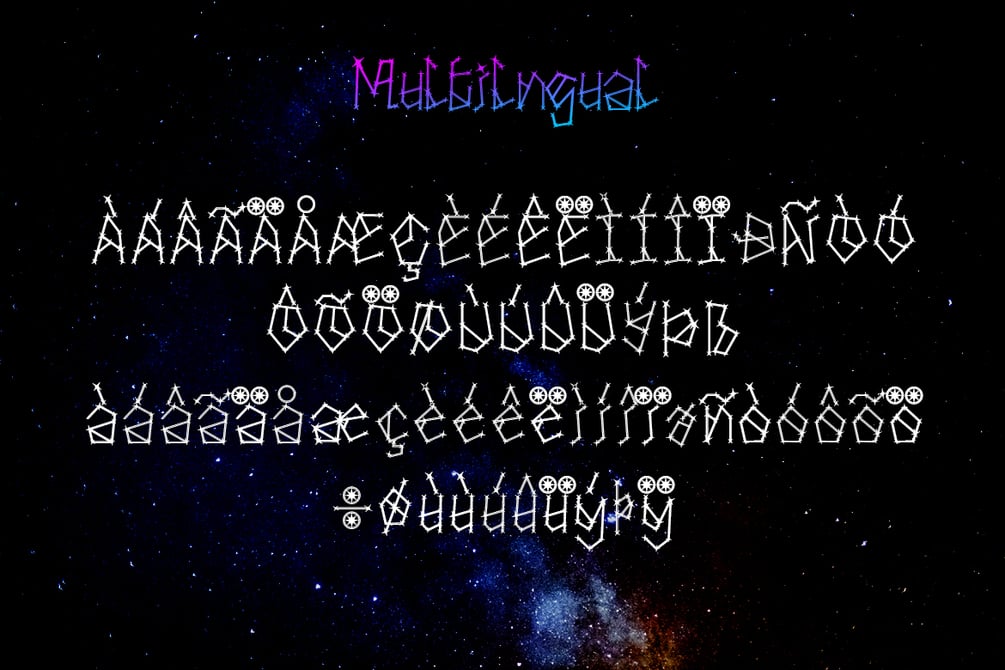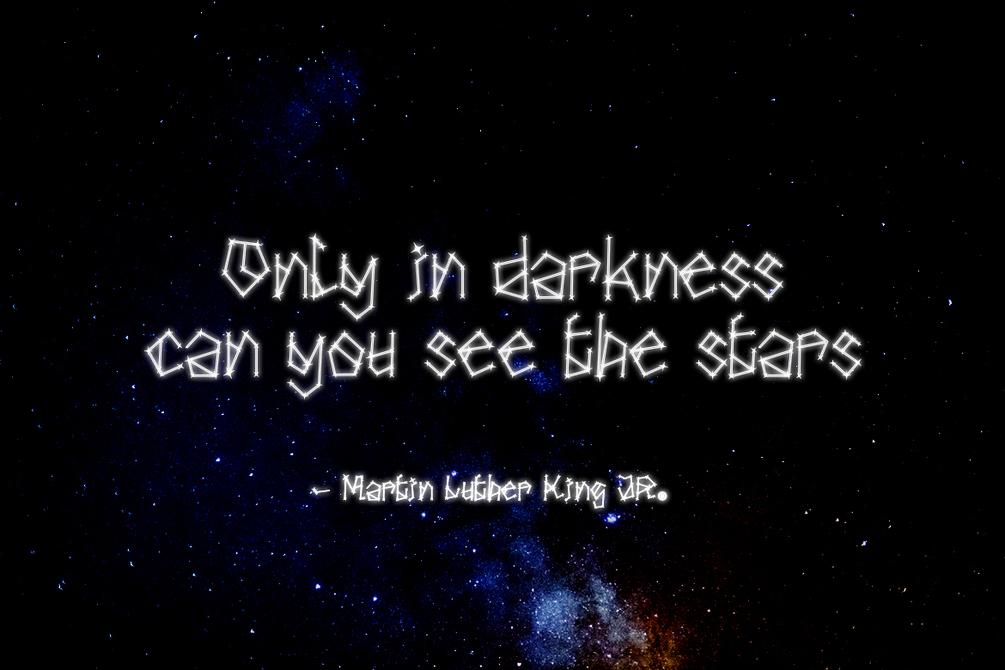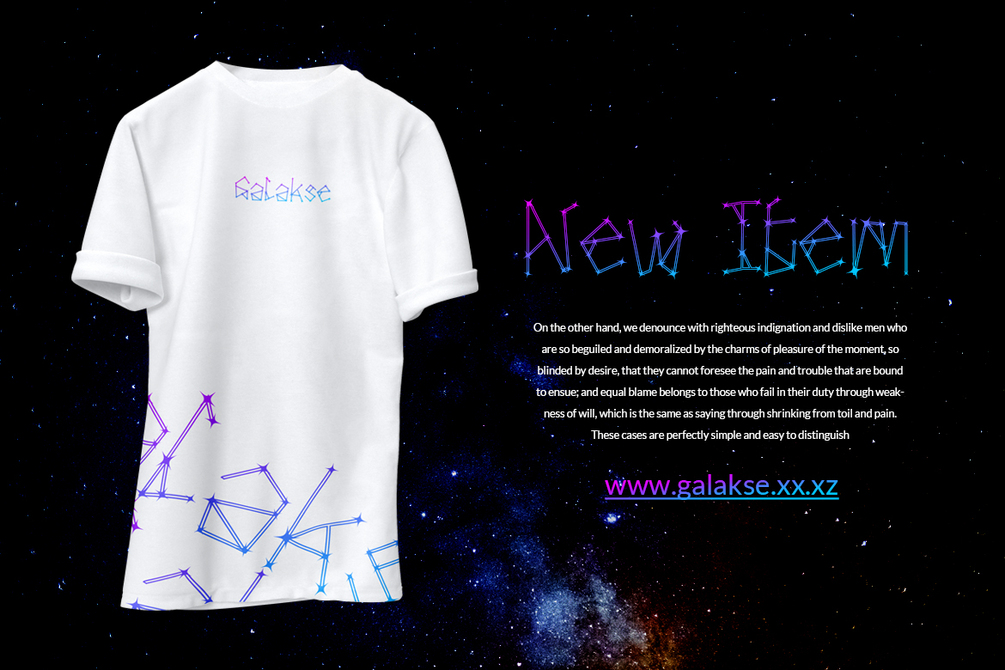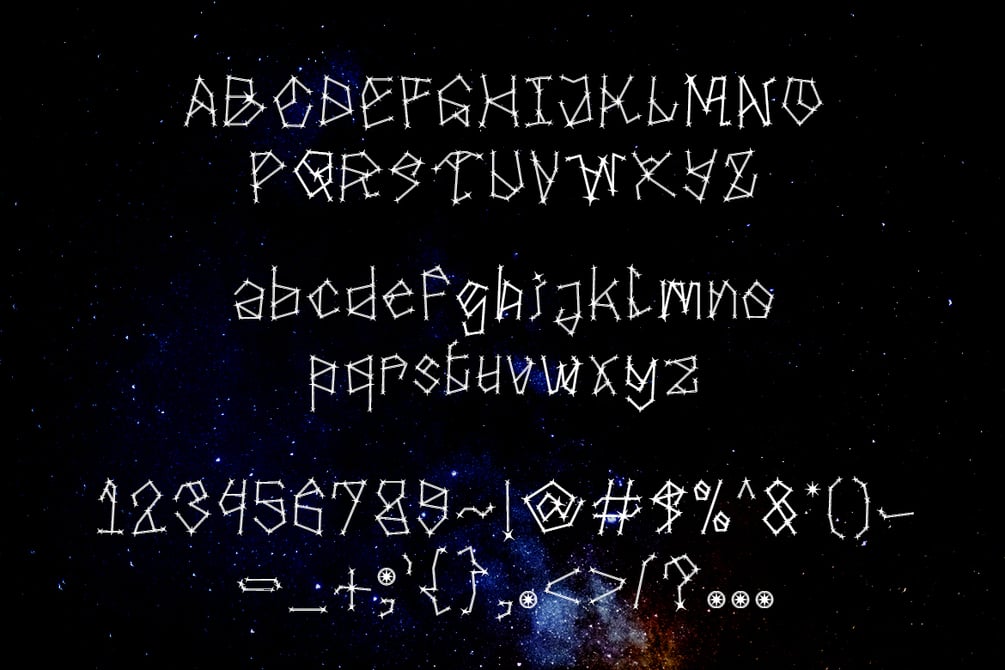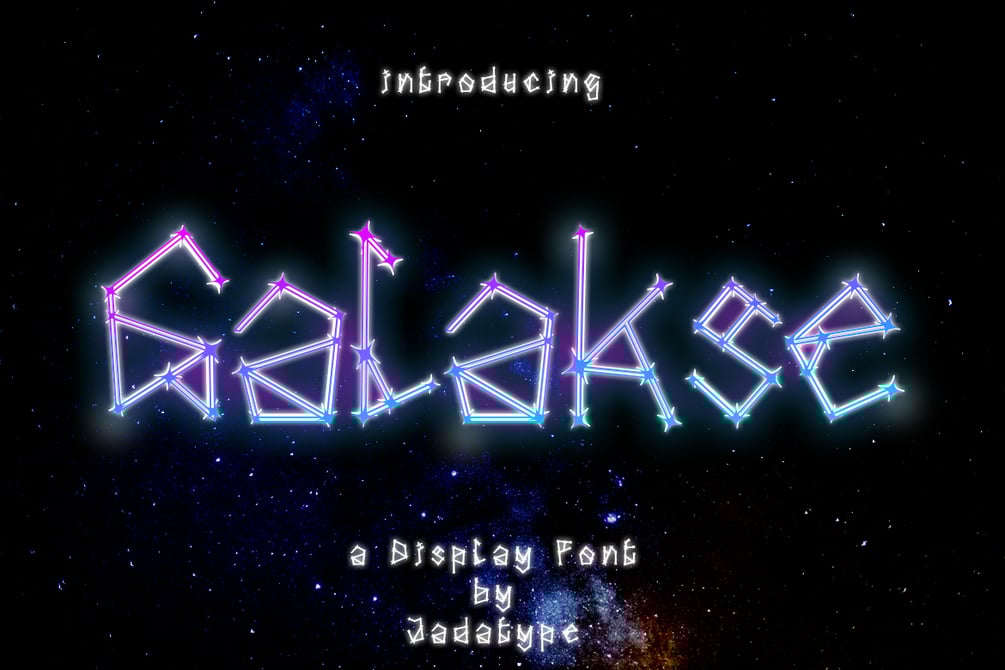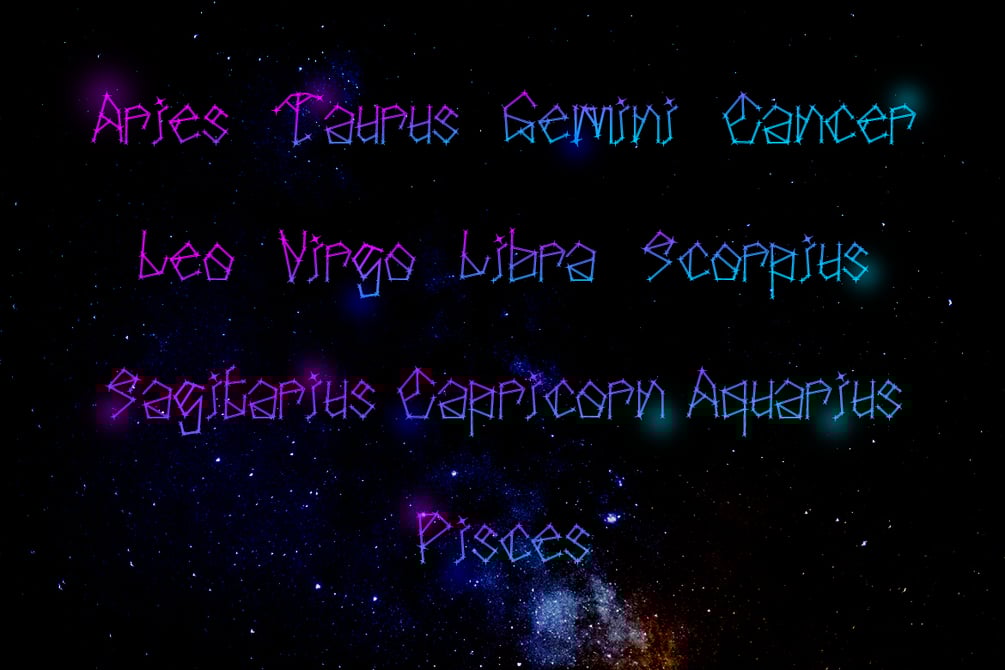
Galakse Font
Galakse is a font with Zodiac's vibe. suitable for social media, branding, craft, products, Zodiac theme, and so on. contains standard English letters, numbers, punctuation, and several accents that support multilingualism.